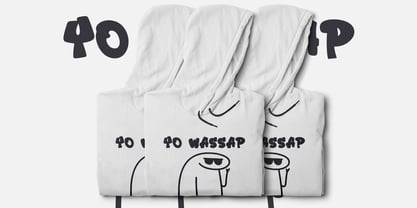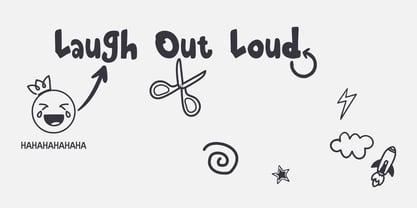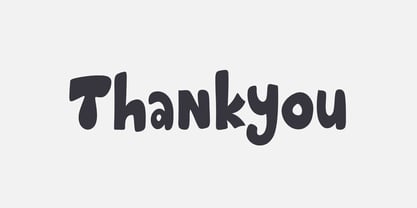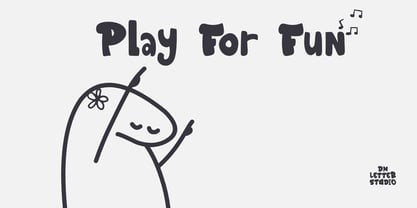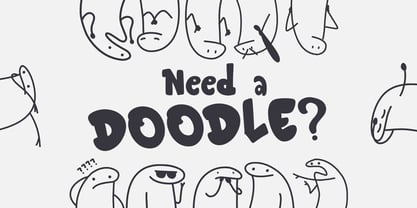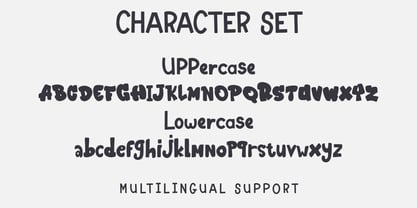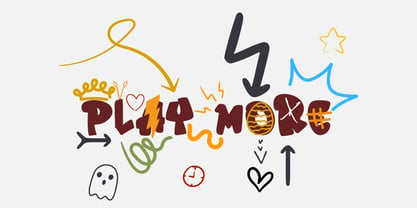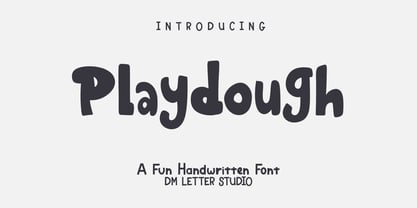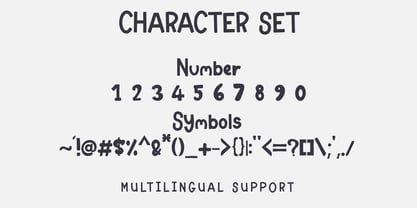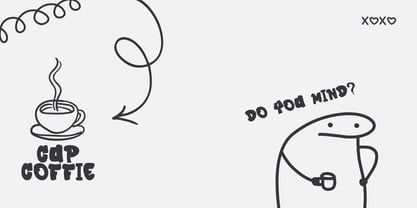
Meet Playdough, the Chunky Playful Display Font
Playdough is a chunky, squishy display font inspired by soft clay shapes and bouncy, kid-friendly lettering. It feels fun, bold, and cheerful, with rounded forms that instantly add personality to any design. Because the letter shapes are thick and well-balanced, Playdough stays readable at any size, from small stickers to big headlines. Use it for kids' projects, playful branding, packaging, posters, stickers, apparel, and social media graphics. As a result, your designs feel friendly, bright, and full of joy.
Fast layouts with the Playdough Font
Start with short, punchy words and let the chunky shapes do the work. After that, add supporting text in a clean sans font for contrast. Because Playdough has soft, rounded forms, it works especially well in stacked layouts, bubbles, and badge-style designs. In addition, it shines on stickers, labels, classroom decor, and product packaging. Finally, try color pairs like bright pastel mixes, black & white, primary colors, or candy tones to push the playful vibe.
Creative uses and quick wins
Kids branding, toy labels, and fun logos
Stickers, decals, and printable quotes
Posters, packaging, and social media posts
T-shirts, tote bags, mugs, and merch
Uppercase, lowercase, numbers, punctuation
Design tips for Playdough Font
Keep text short so the chunky shapes stay clear. Also, give letters enough spacing to avoid crowding in small designs. For extra fun, add outlines, shadows, or layered colors behind the text. Finally, export at 300 DPI for print and at 2× size for web so everything stays crisp.
Playdough